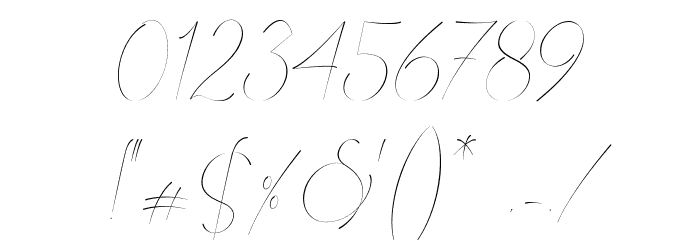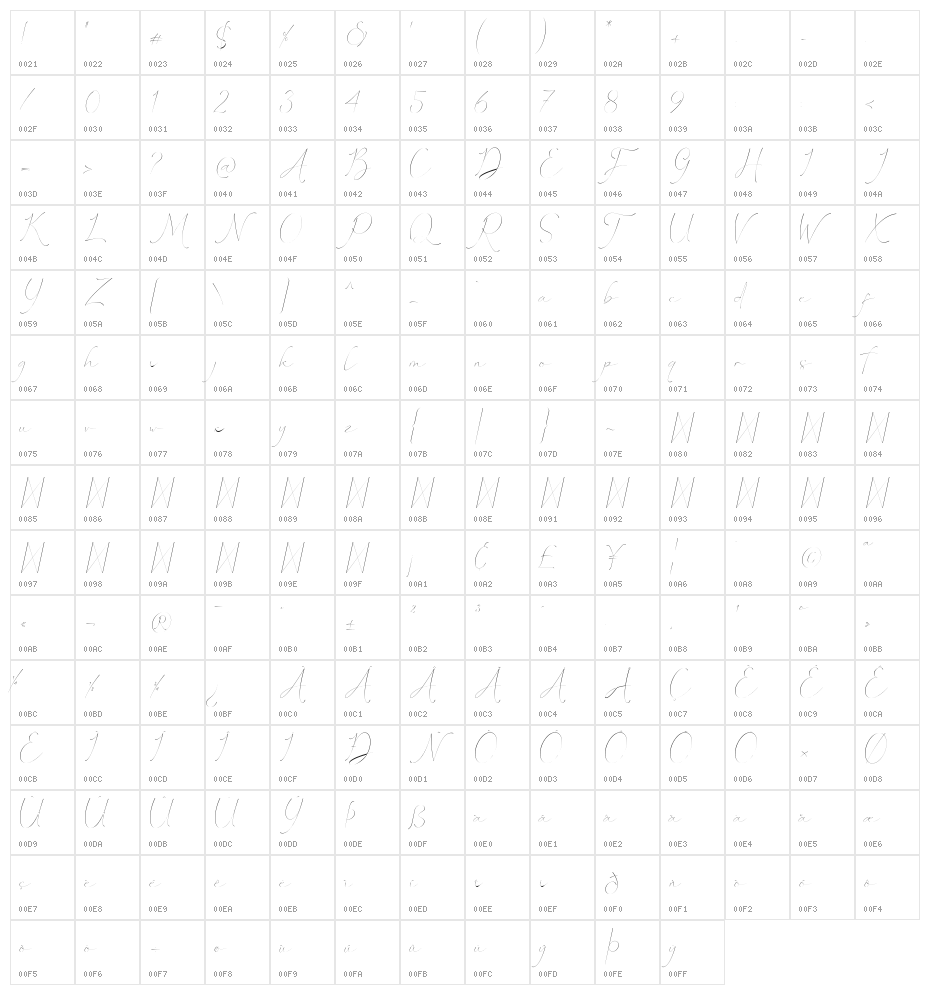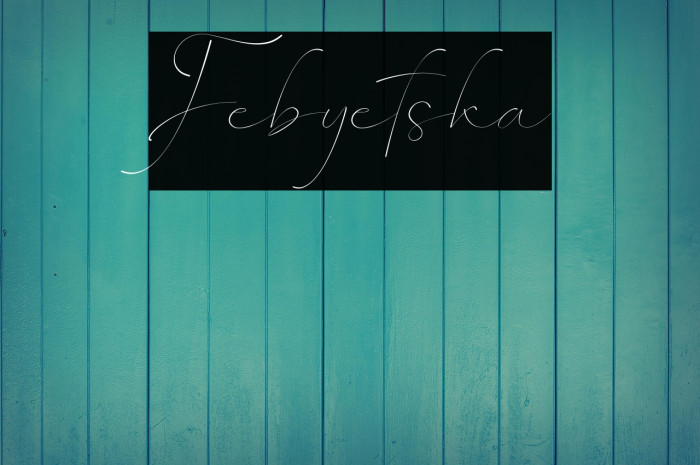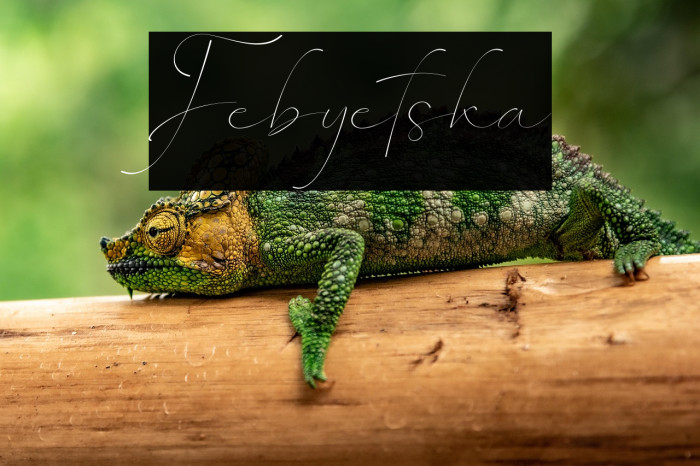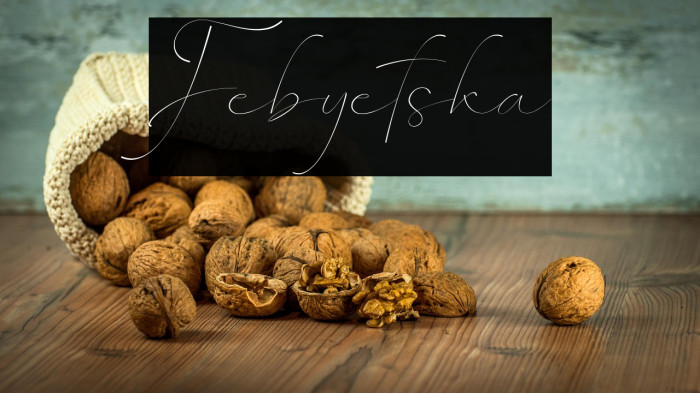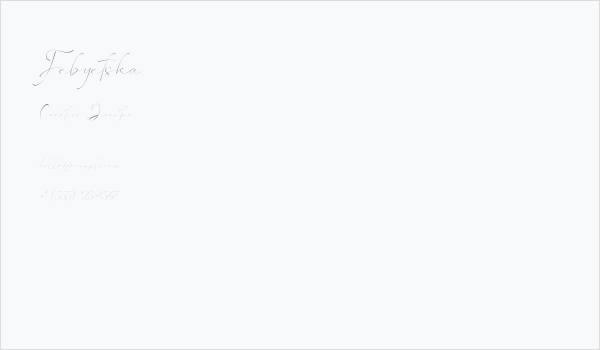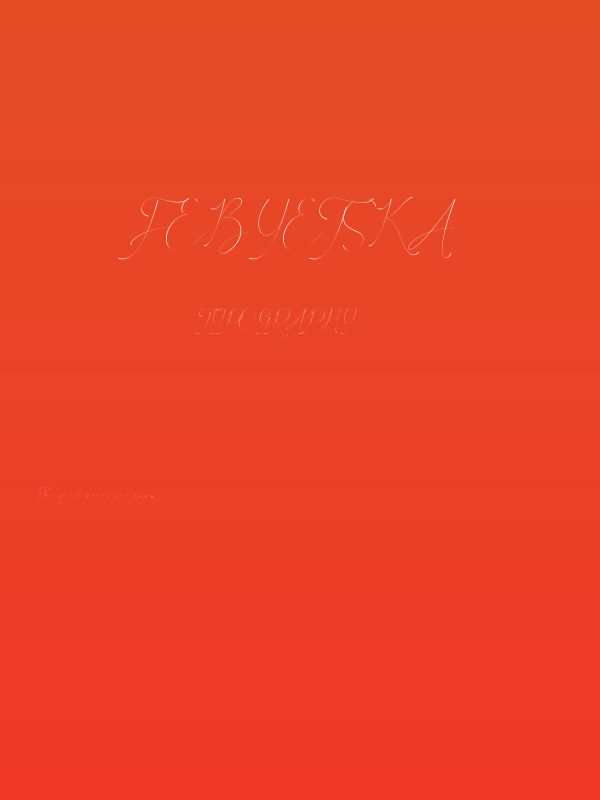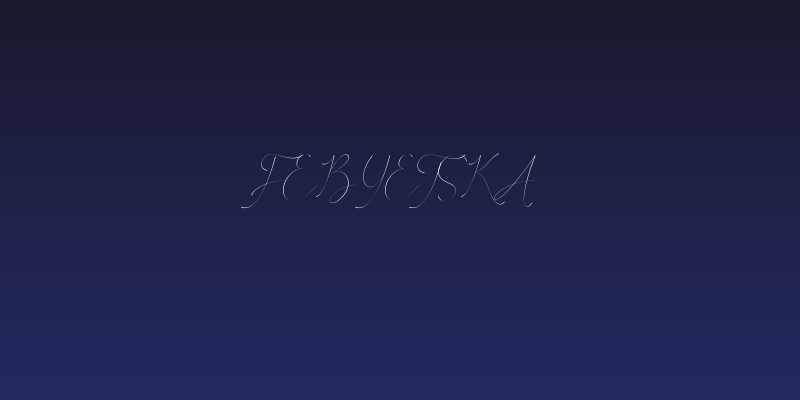
Febyetska Font
Febyetska Description
This elegant script font features a delicate and flowing design, characterized by its thin, graceful strokes and fluid connections between letters. The uppercase letters exhibit a sophisticated flair with sweeping curves, while the lowercase letters maintain a consistent, harmonious flow. The numerals and special characters are crafted with the same attention to detail, ensuring a cohesive look across all elements. The font's airy and light appearance makes it ideal for creating a sense of elegance and refinement in any project.
| Proposed Projects | Ideal for wedding invitations, elegant branding, personal stationery, and upscale packaging designs. |